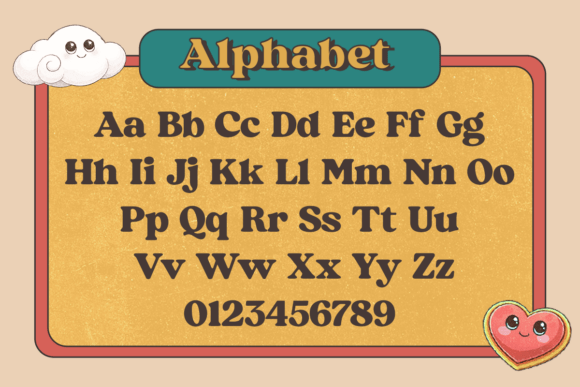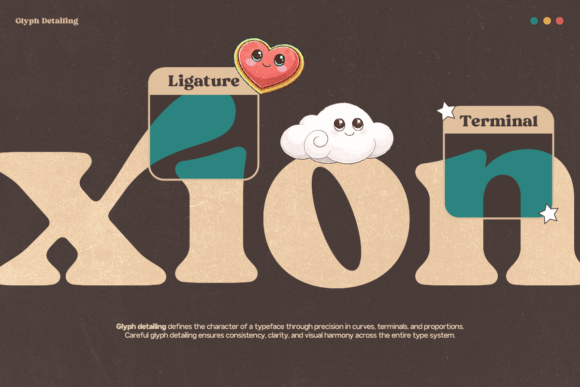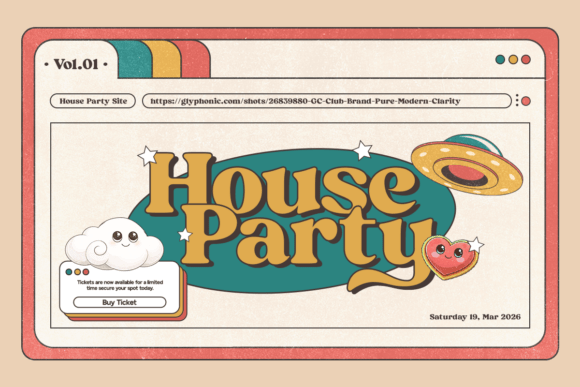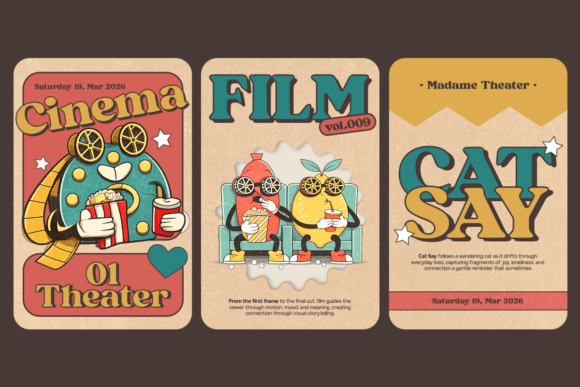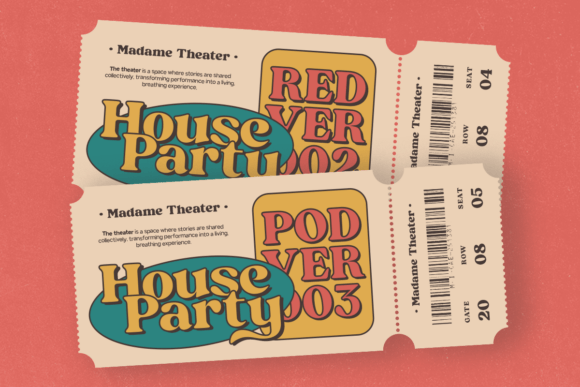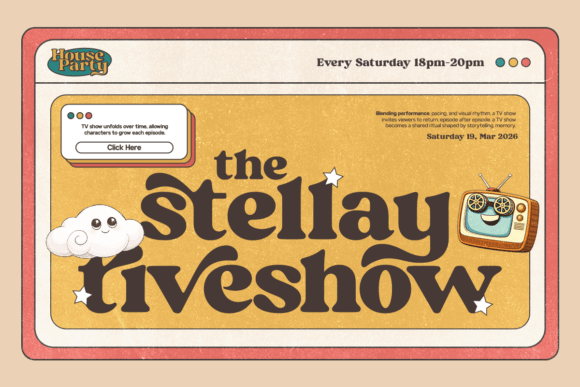
Introduction to Club Brand Font
Club Brand – Bold Retro Serif Display is a powerful retro-inspired serif display typeface designed to make a bold statement.
Influenced by vintage club culture, classic branding, and old-school display typography, this font combines strong serif structures with confident curves to create a striking and memorable presence Built for impactful headlines and standout branding, **GC Club Brand** is perfect for logos, posters, merchandise, packaging, editorial layouts, and retro-themed visual identities.